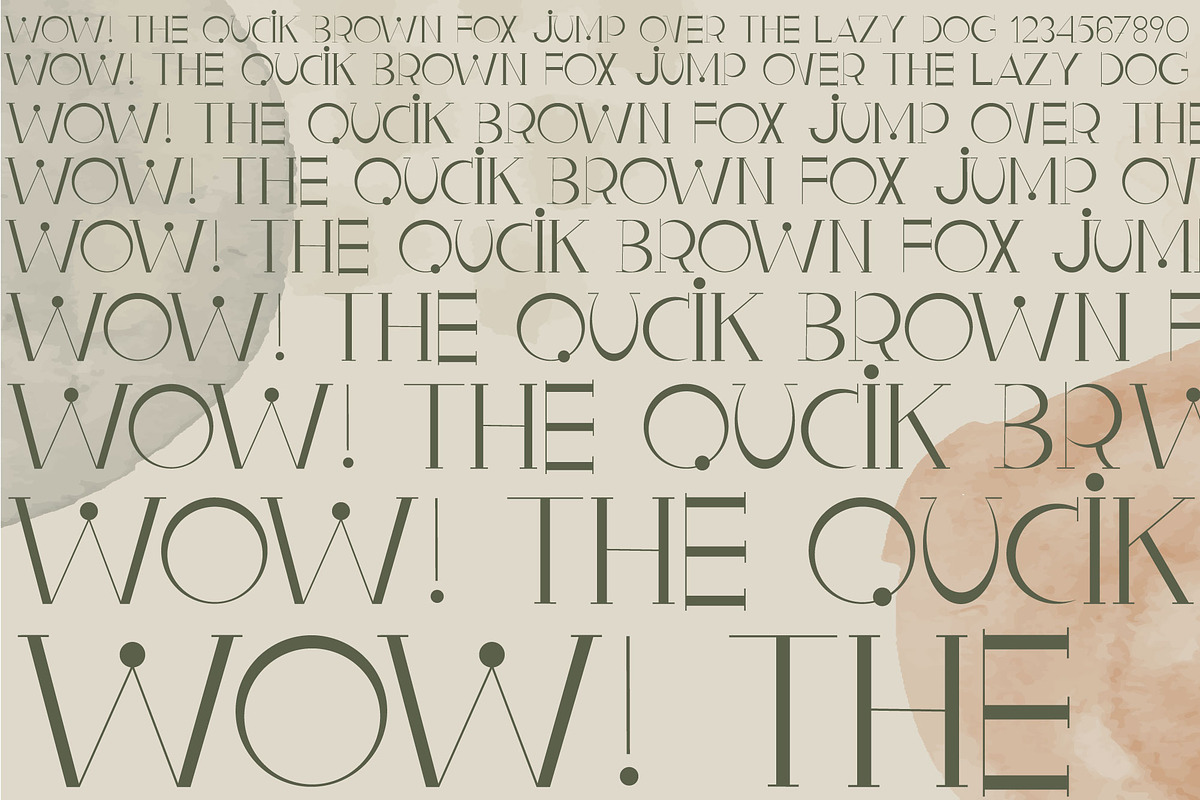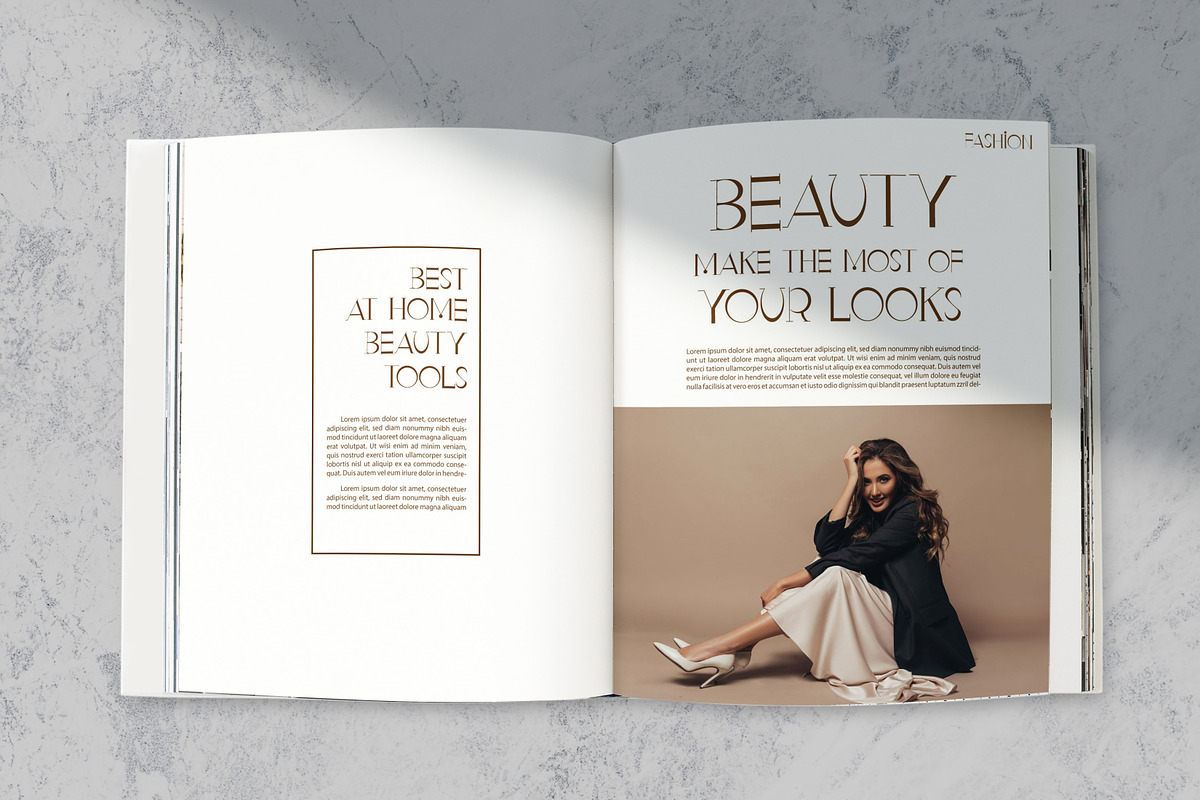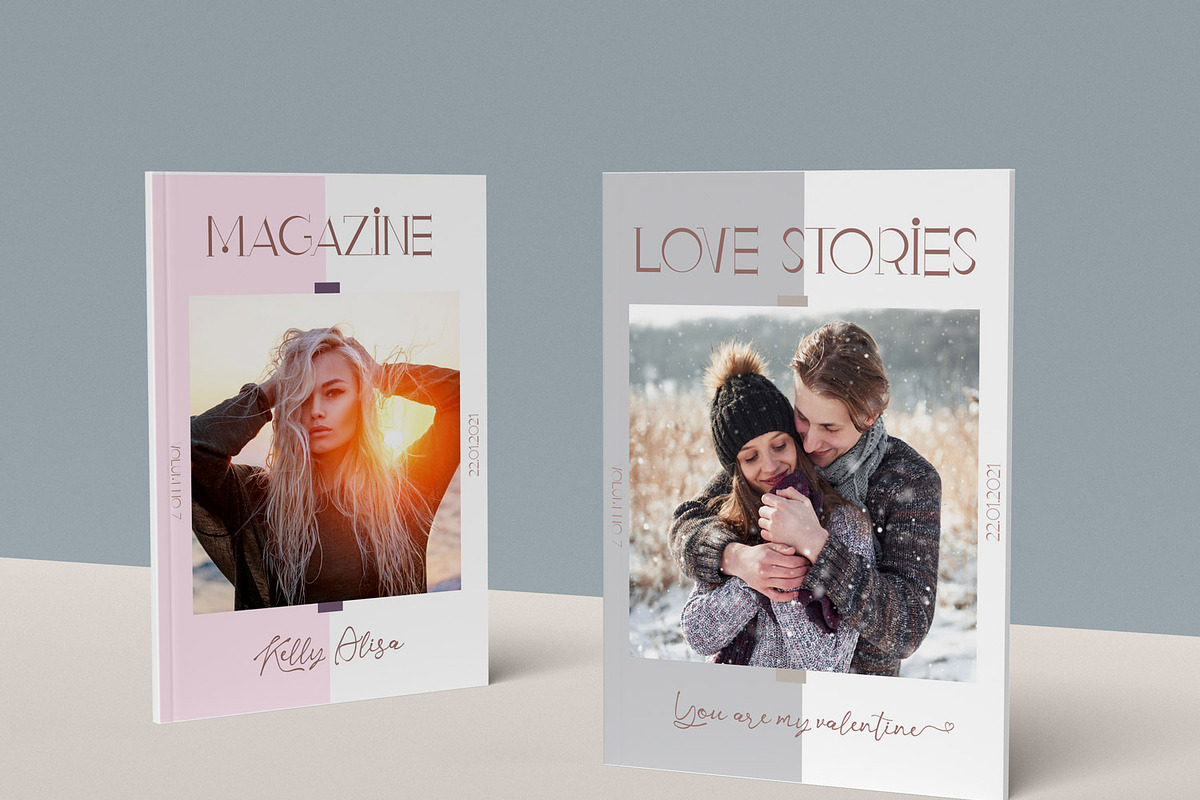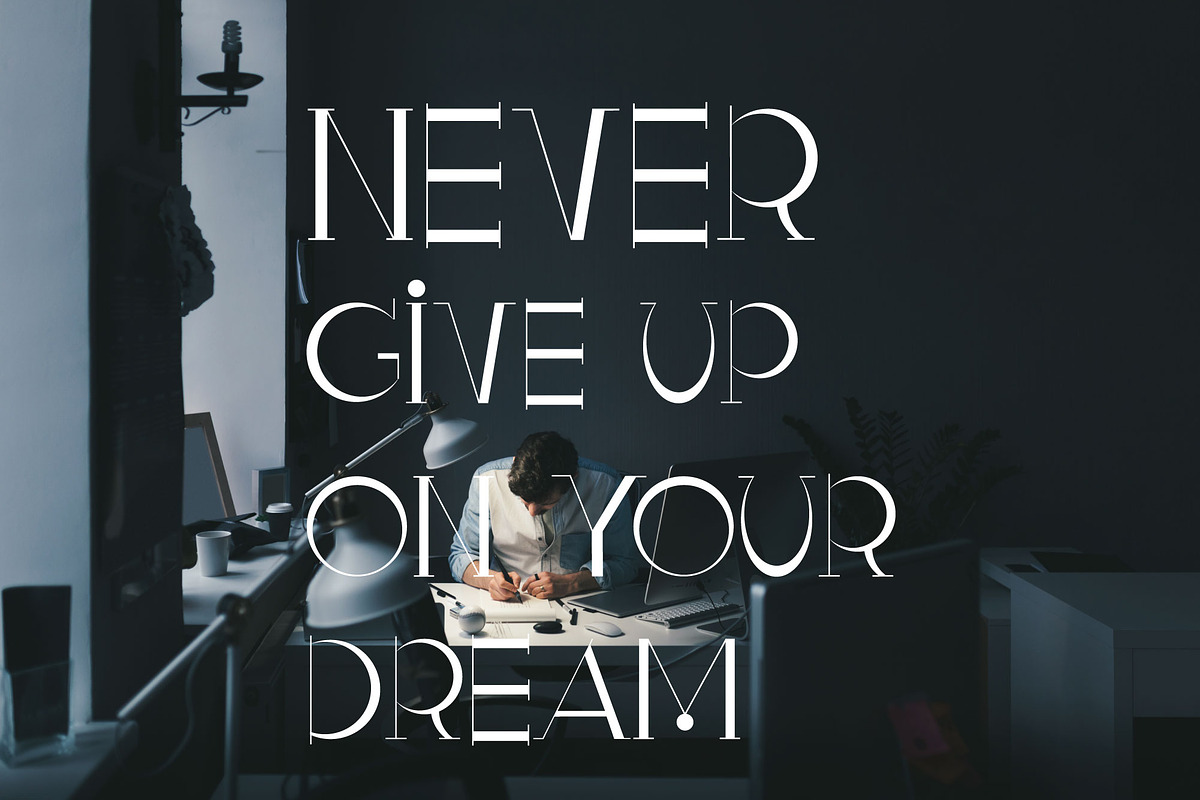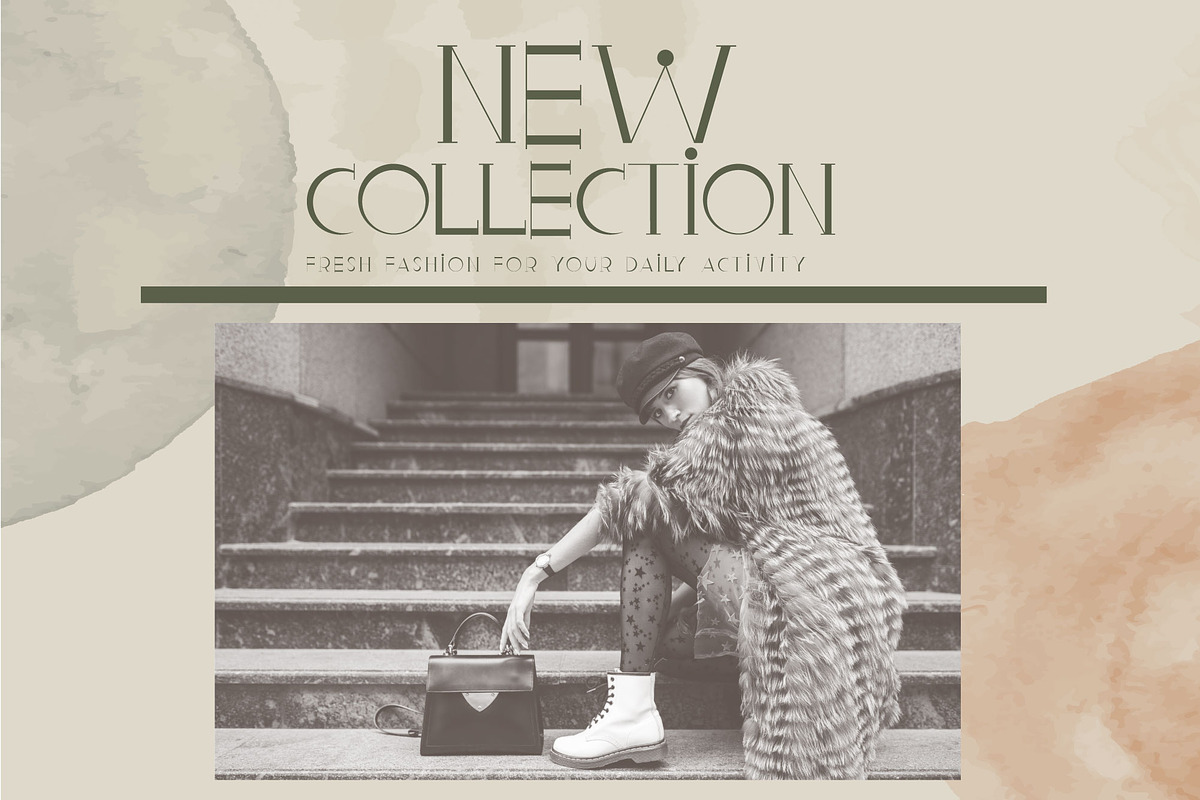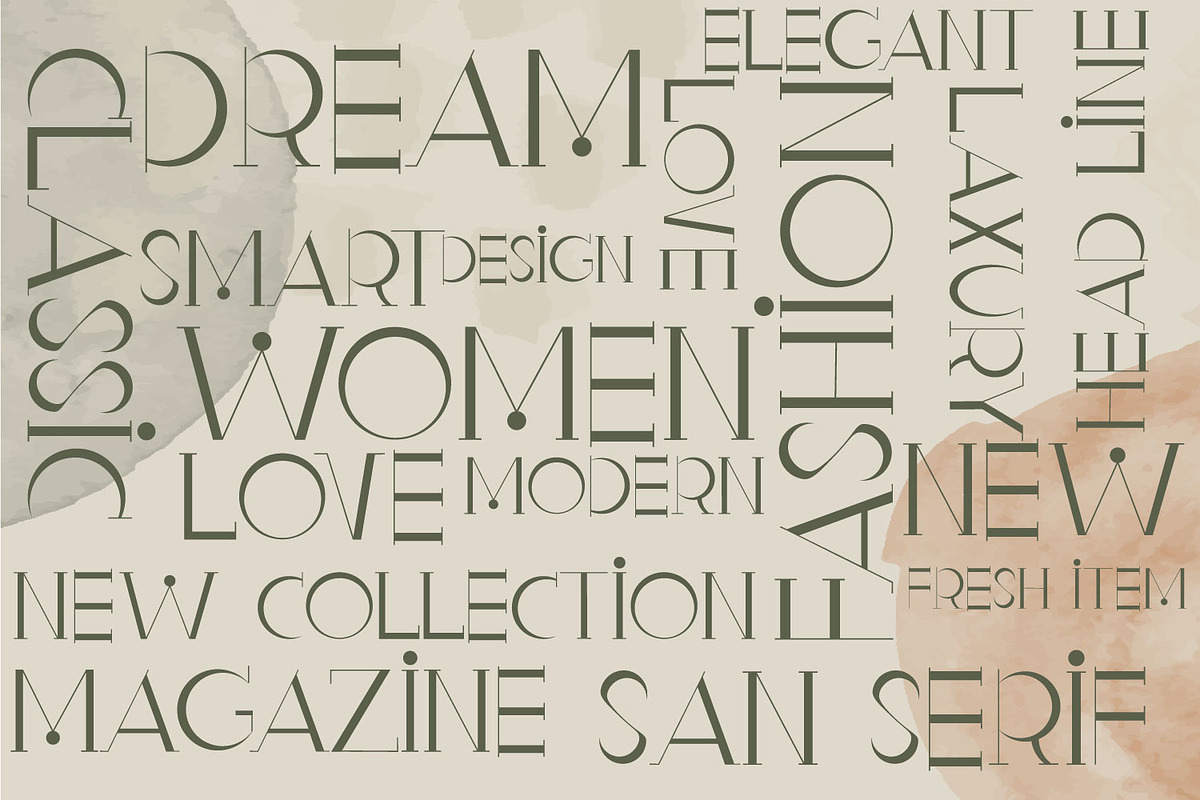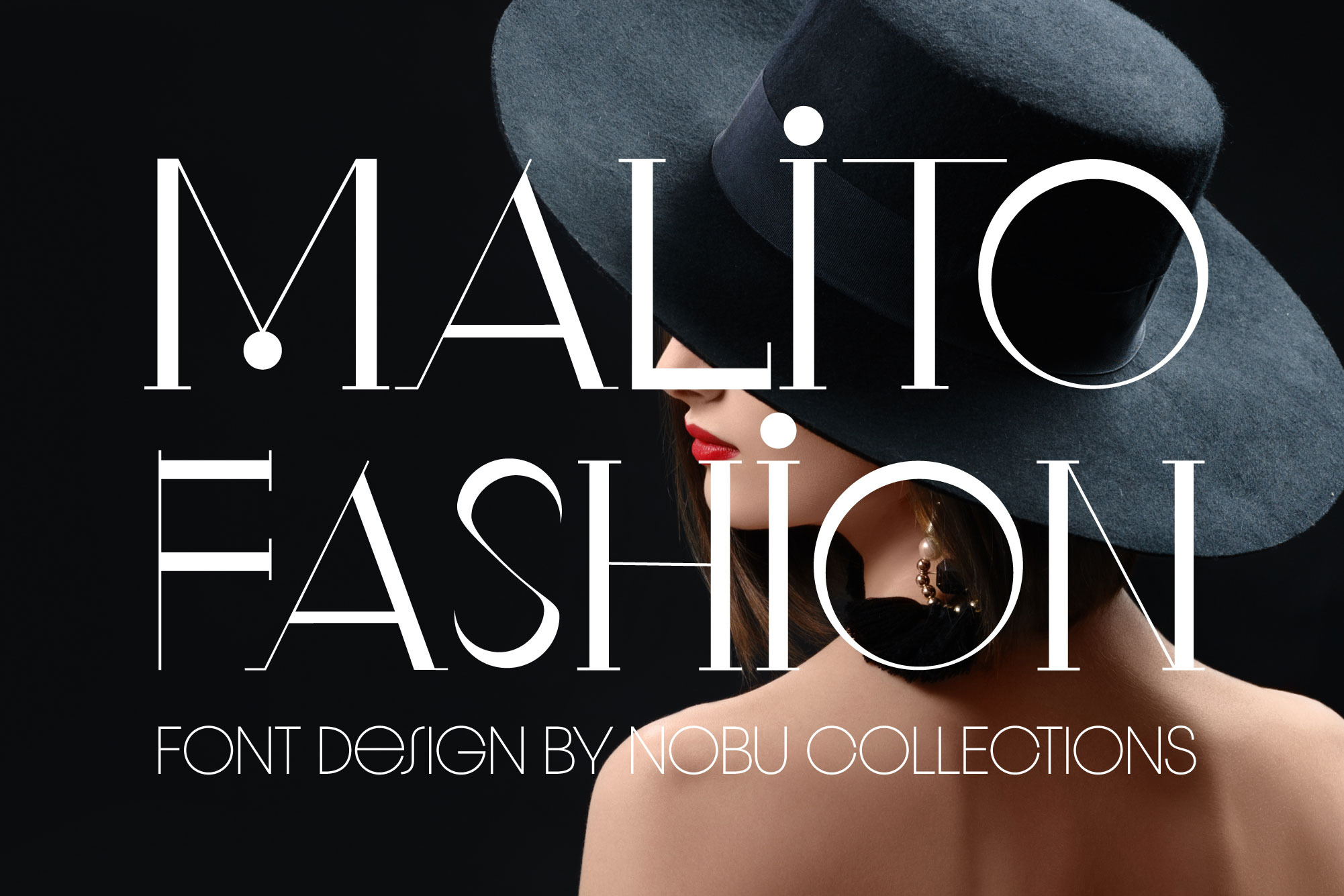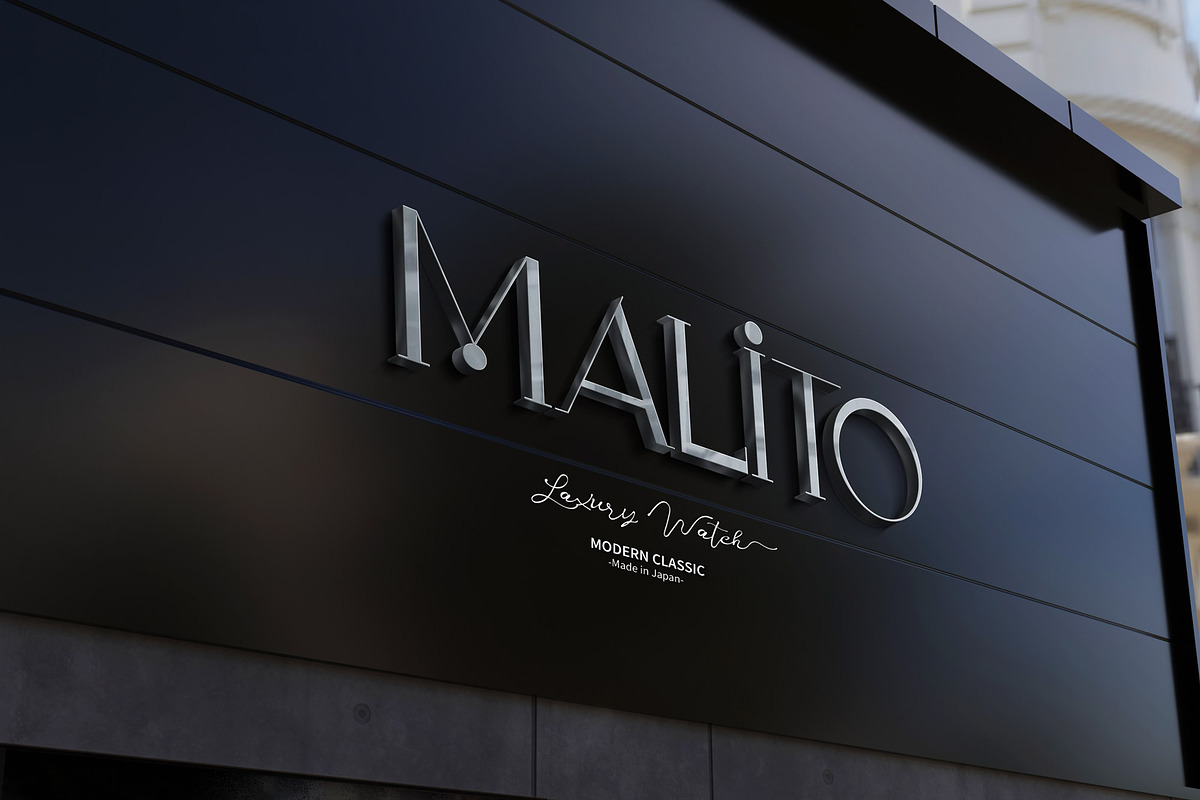
Malito Fashion Font
Introducing 'Malito Fashion Font' – Where Elegance Meets Style
Elevate your creative projects with the exquisite allure of Malito Fashion Font. This serif typeface is a seamless blend of sophistication and finesse, designed for those who appreciate the finer details.
🌟 Key Features: ✔︎ Thin, Sleek Lettering: Malito Fashion Font boasts slender and stylish serifs, giving your text a refined and upscale appearance. ✔︎ Delicate and Smooth: Each character is carefully crafted to exude a sense of smoothness and delicacy, making it ideal for fashion branding, editorial designs, and beyond. ✔︎ Timeless Elegance: With its timeless charm, this font is a perfect choice for projects that demand an elegant touch.
Whether you're working on a fashion brand's visual identity, designing a high-end magazine spread, or creating a captivating logo, Malito Fashion Font will infuse your work with sophistication and class.
Add a touch of distinction to your projects with 'Malito Fashion Font.' Experience the results that only refined typography can deliver.
Get inspired and make a lasting impression with Malito Fashion Font – where style meets substance.